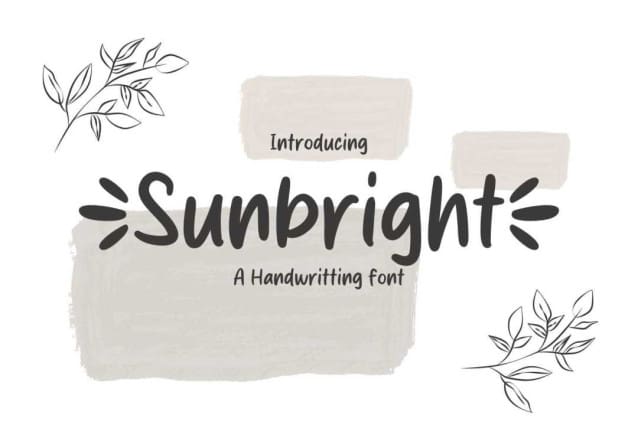
Sunbright Hand Font
Sunbright Hand Font is a handwritten comic/cartoon-style font. Masterfully designed to become a true favorite, this font has the potential to bring each of your creative ideas to the highest level!